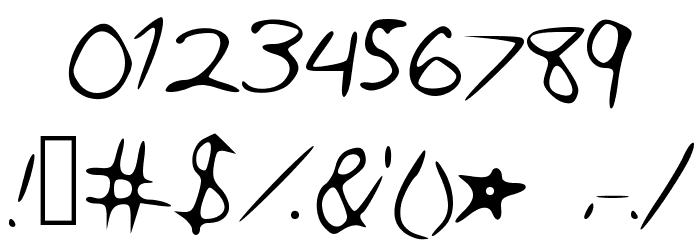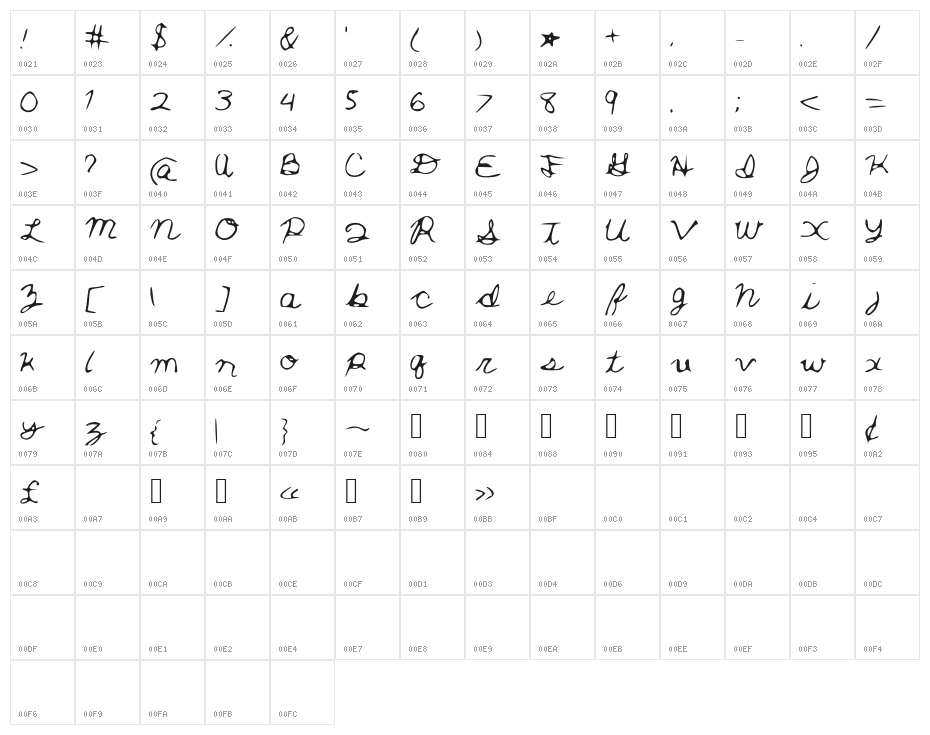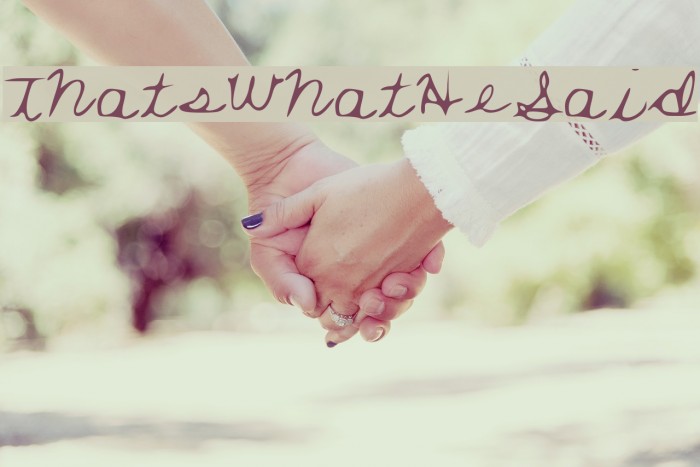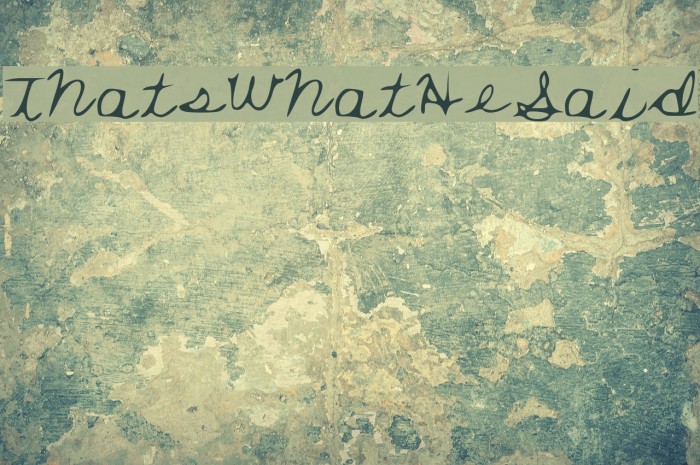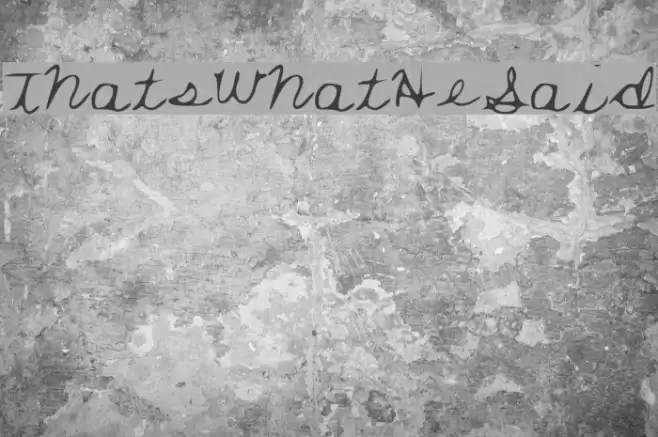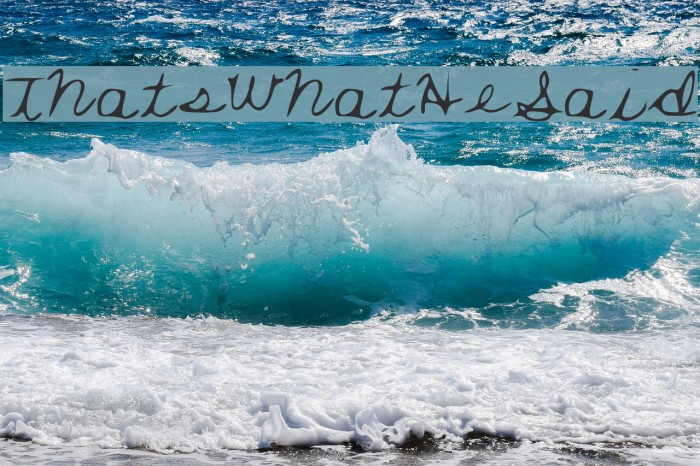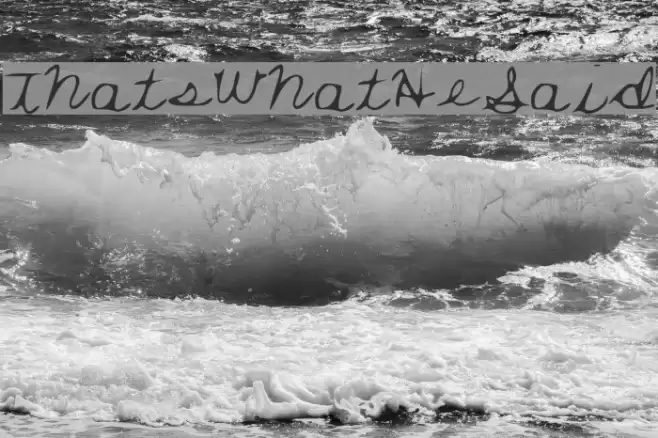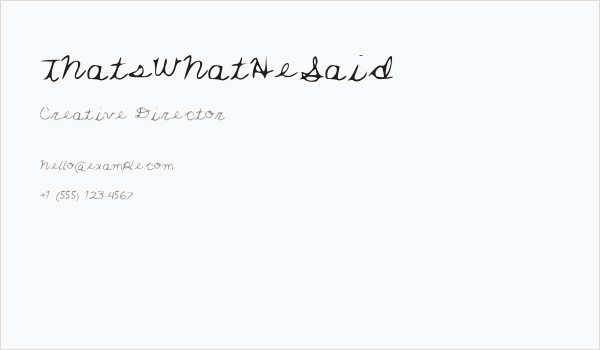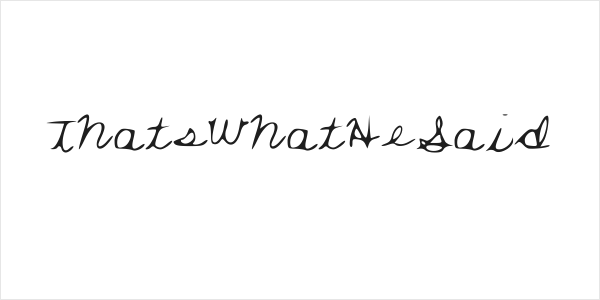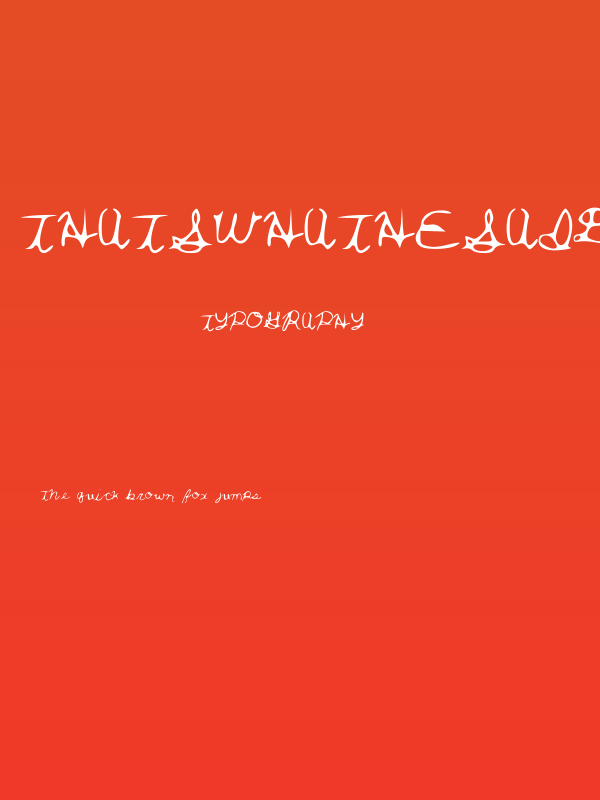
ThatsWhatHeSaid Font
ThatsWhatHeSaid Description
This font features a unique and artistic script style, characterized by its flowing, cursive letters that mimic the fluidity of handwriting. The uppercase letters exhibit a playful and dynamic form, with varying stroke widths that add a sense of movement and energy. The lowercase letters maintain a consistent style, with elegant loops and curves that enhance the handwritten feel. Numbers are bold and slightly exaggerated, maintaining the overall whimsical aesthetic. Special characters are creatively designed, adding to the font's distinctive personality. The font's overall appearance is both modern and artistic, making it suitable for creative and expressive projects.